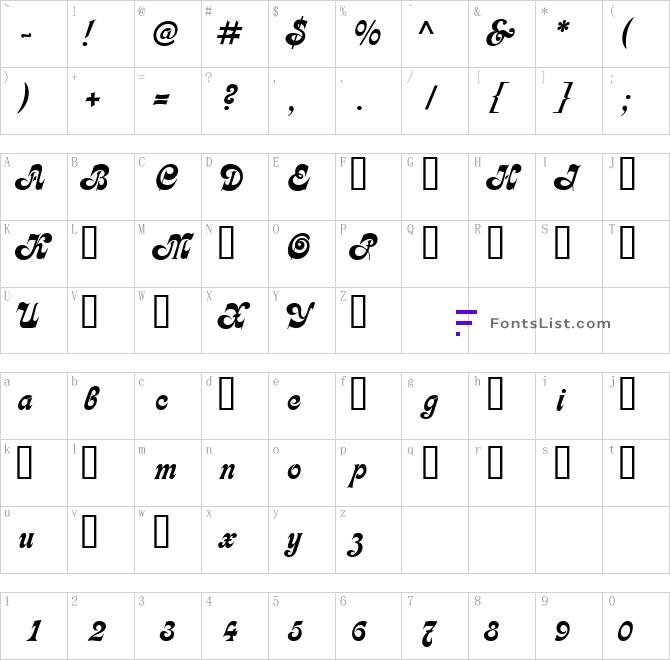
- Font Name:Asessor
Asessor.ttf is a very beautiful artistic font, Asessor.ttf is widely used in the design and printing of various books and pictures,Asessor.ttf has a strong visual impact,Asessor.ttf is a commonly used font in newspapers, magazines and books, and is used in posters, e-commerce Poster design, store design, logo design, font design and other fields.Asessor.